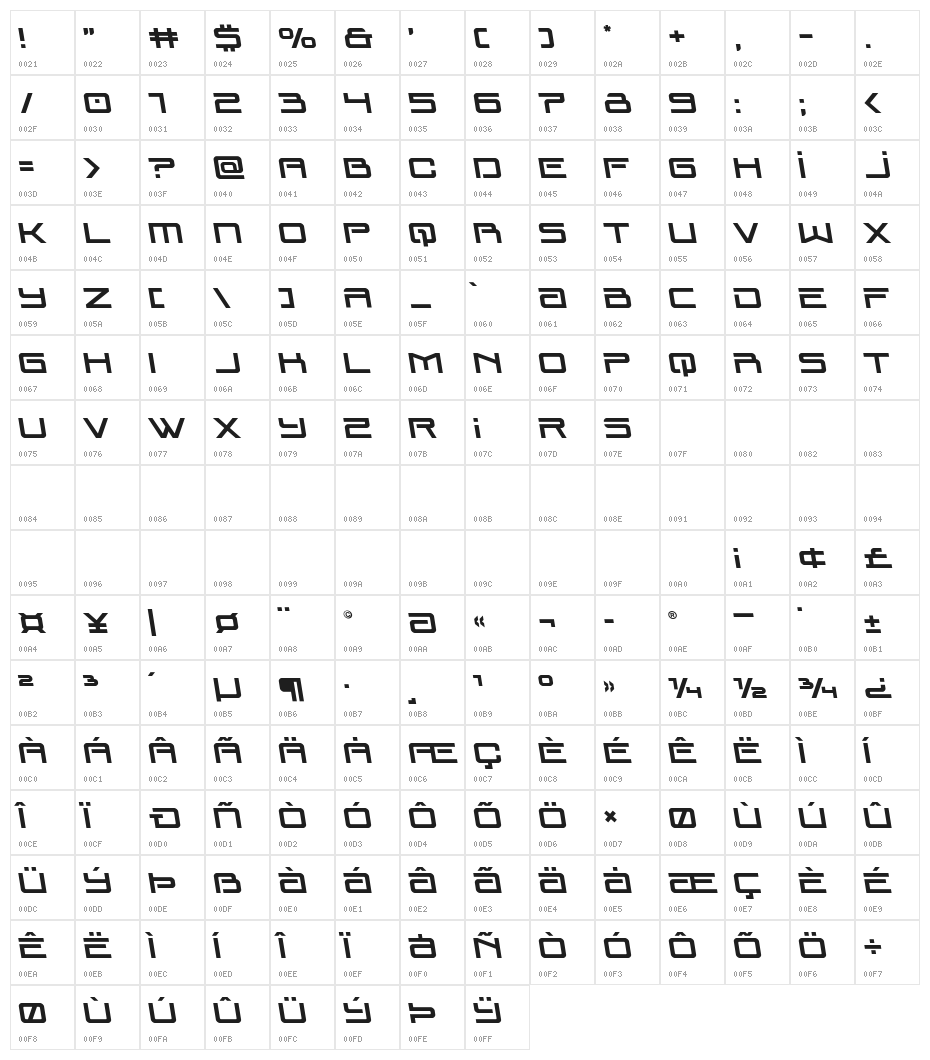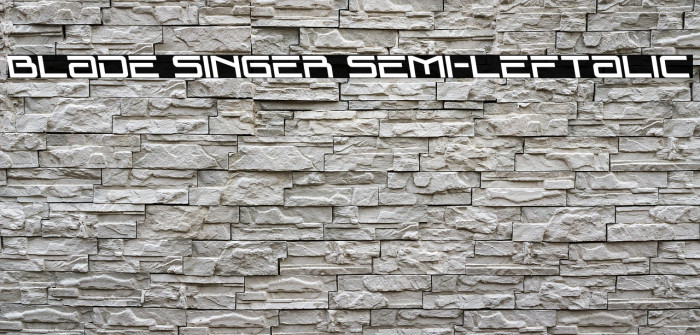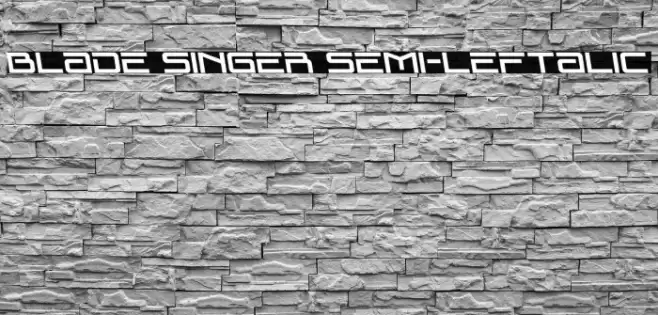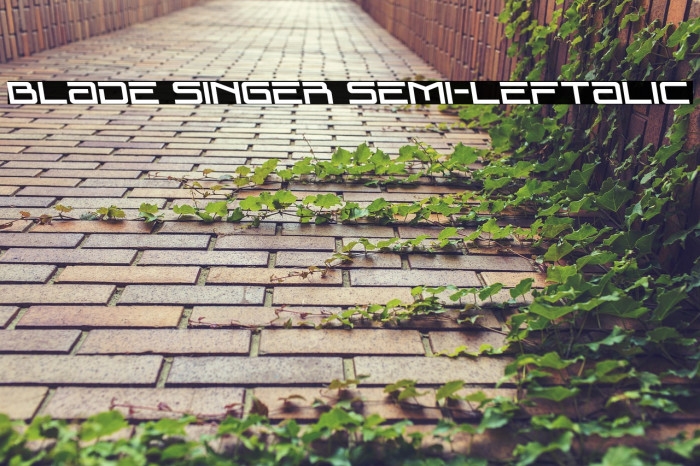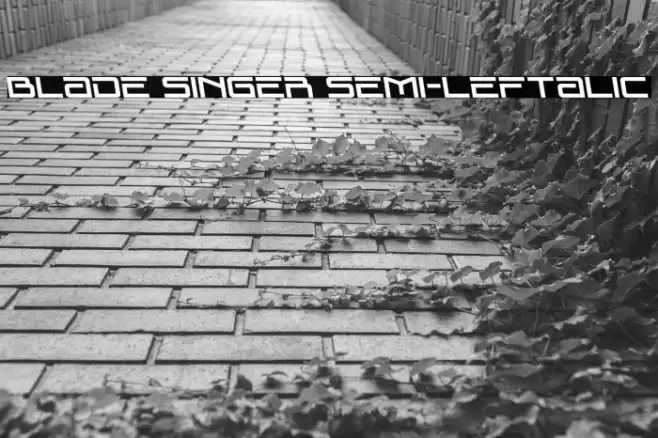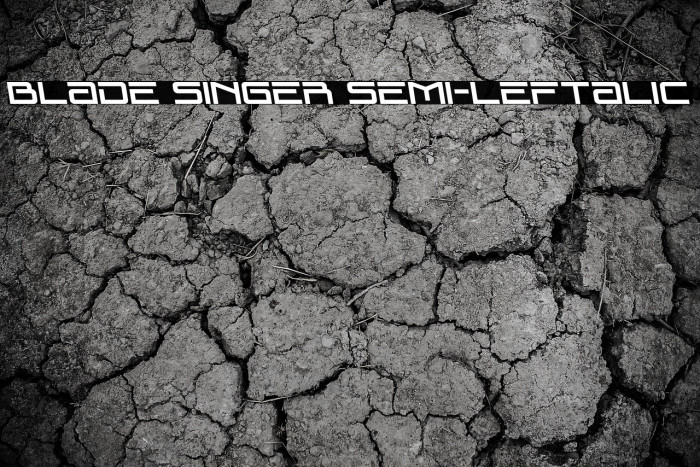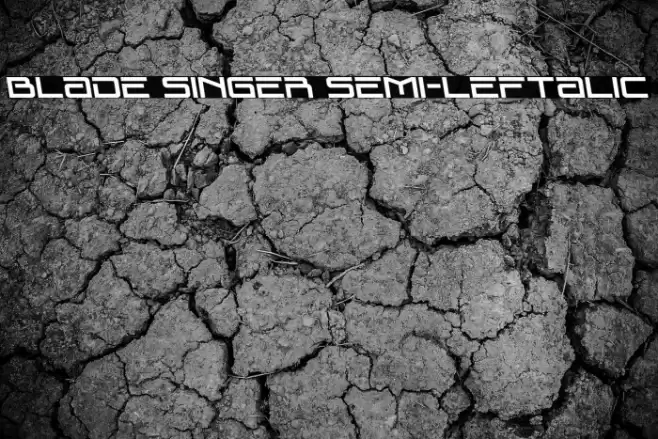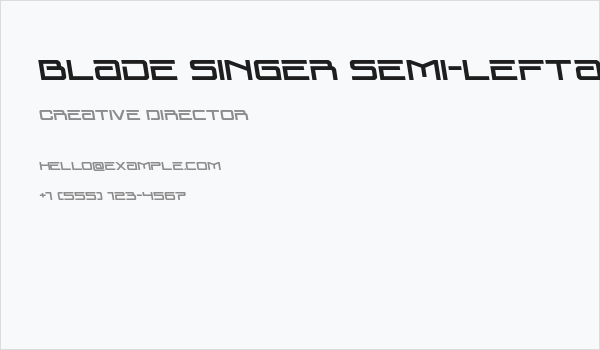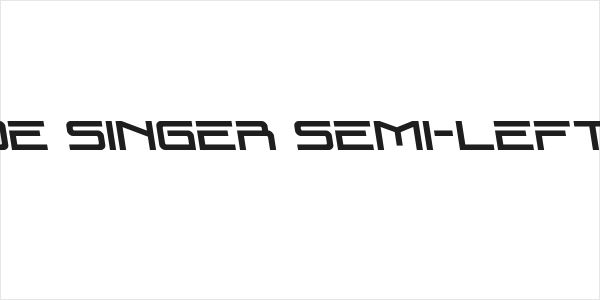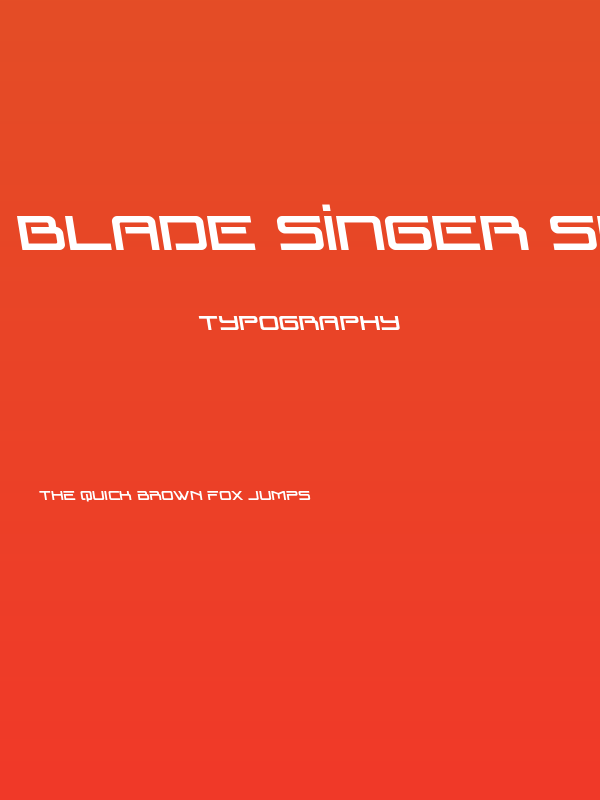
Blade Singer Semi-Leftalic Font
Blade Singer Semi-Leftalic Description
This font presents a futuristic and angular design, characterized by its geometric and sharp-edged letterforms. The uppercase and lowercase letters maintain a consistent style with a slight slant, giving a dynamic and forward-moving appearance. The numerals and special characters follow the same angular theme, ensuring uniformity across all glyphs. The font's structure is clean and modern, with a focus on readability while maintaining a unique aesthetic. Its bold strokes and distinct shapes make it suitable for attention-grabbing designs.
| Proposed Projects | Ideal for sci-fi themed projects, technology branding, video game titles, and modern poster designs. |